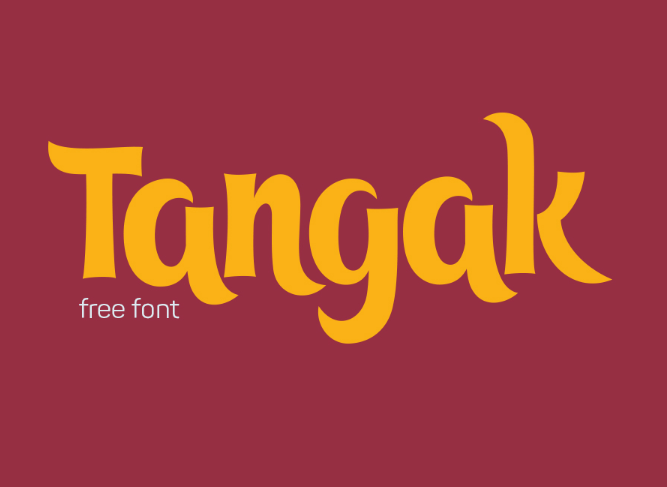
Tangak Font
Great! That was my initial feeling, and I tried to admire it in a work. Introducing Tangak! A new script font, Tangak Font designed and shared by Dastan Miraj. Tangak Typeface, simple and easy to create this awesome lettering, just type your words and then you will immediately see the great results.